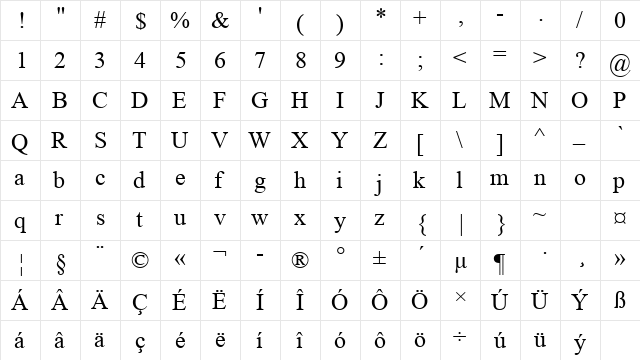
Times New Roman CE Regular
Design Context for Times New Roman CE Typeface
Times New Roman CE is a composed and adaptable typeface that performs quietly and consistently across a wide range of design contexts.